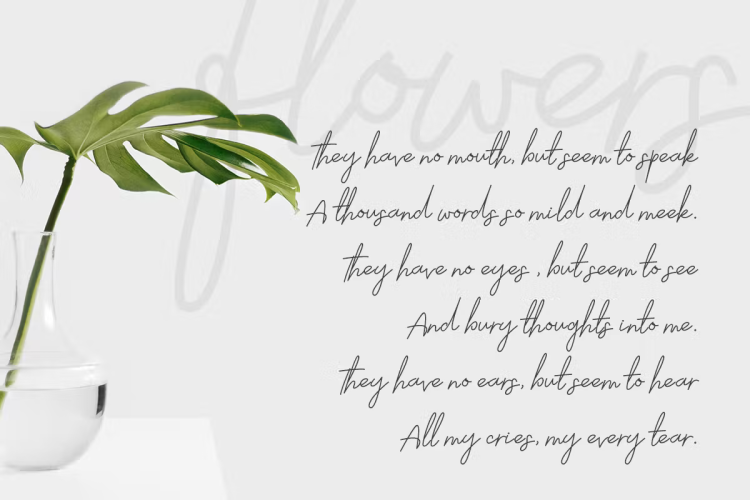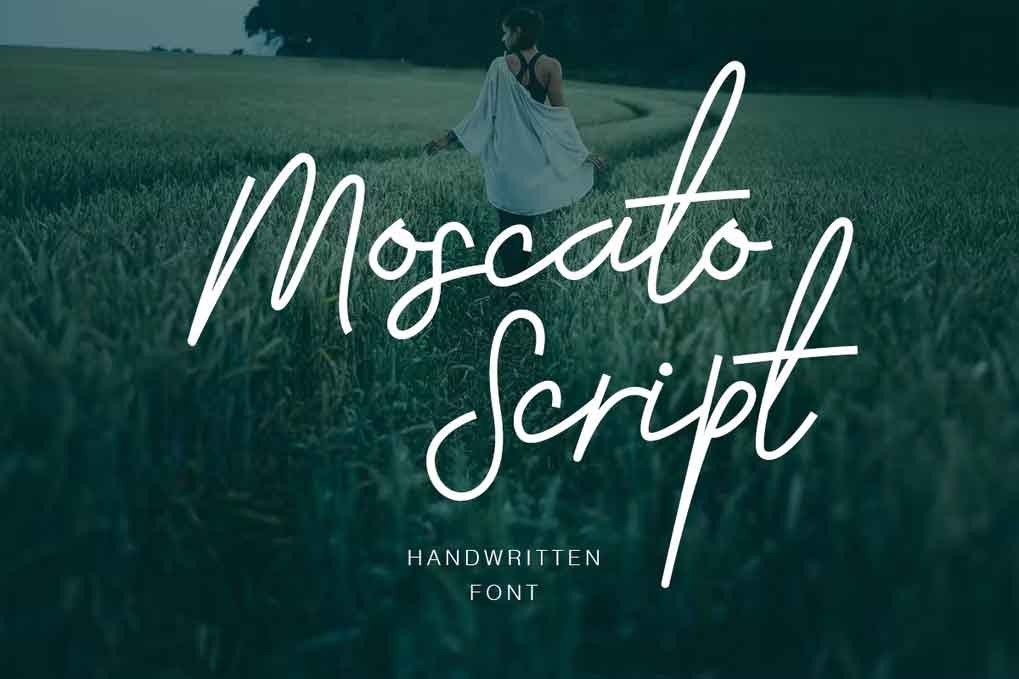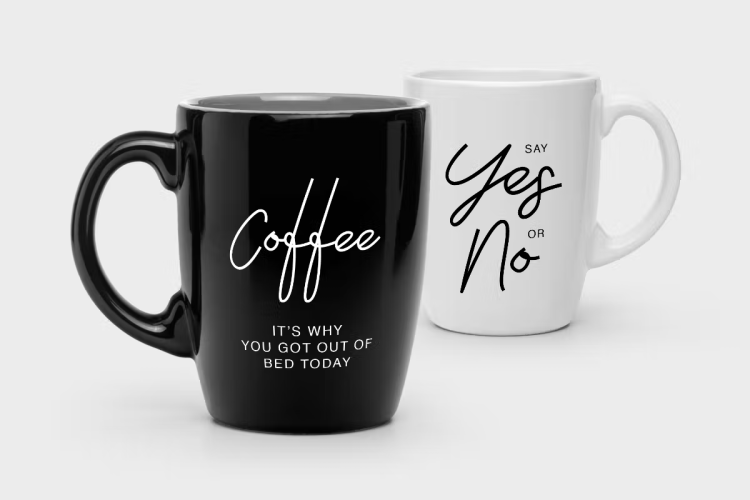
Moscato Script Font
Introducing Moscato – A dapper handwritten font with a personal touch. Moscato is perfect for many different project ex: quotes, blog header, poster, wedding, branding,…
Introducing Moscato – A dapper handwritten font with a personal touch. Moscato is perfect for many different project ex: quotes, blog header, poster, wedding, branding, logo, fashion, apparel, letter, invitation, stationery, etc.
Where Moscato Script Font works best
Moscato Script Font brings a personal, handwritten warmth to invitations, menus and place cards.
Craft brands — coffee, cosmetics, bakery — use scripts like Moscato Script Font for signature-style logos and labels.
Pair Moscato Script Font with a plain sans for quotes, stories and Pinterest pins that feel handmade.
What is Moscato Script Font good for?
Moscato Script Font is a Script And Handwritten typeface tagged Branding, Handwritten, Poster, Script. It works well for headlines, logos, posters, social media graphics and branding projects that need a distinctive script and handwritten look.